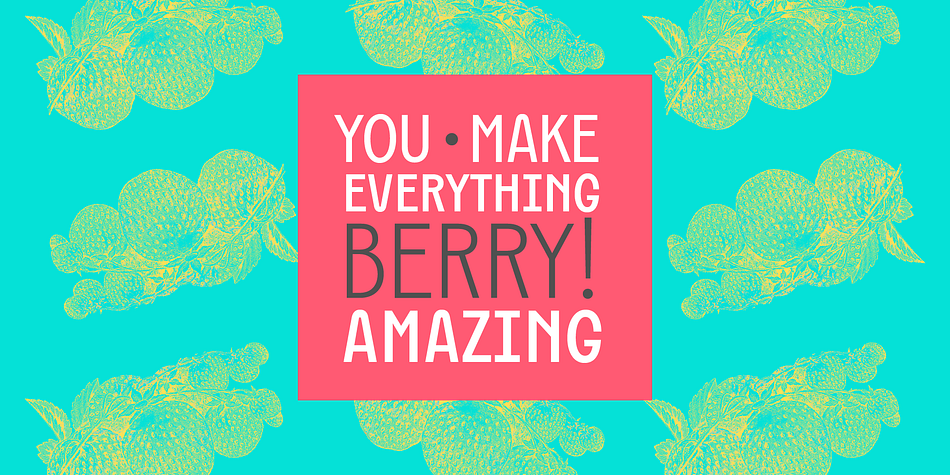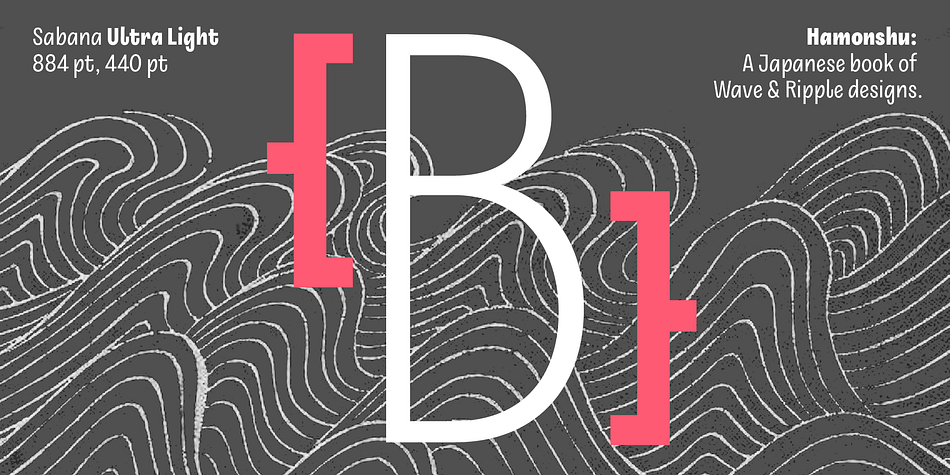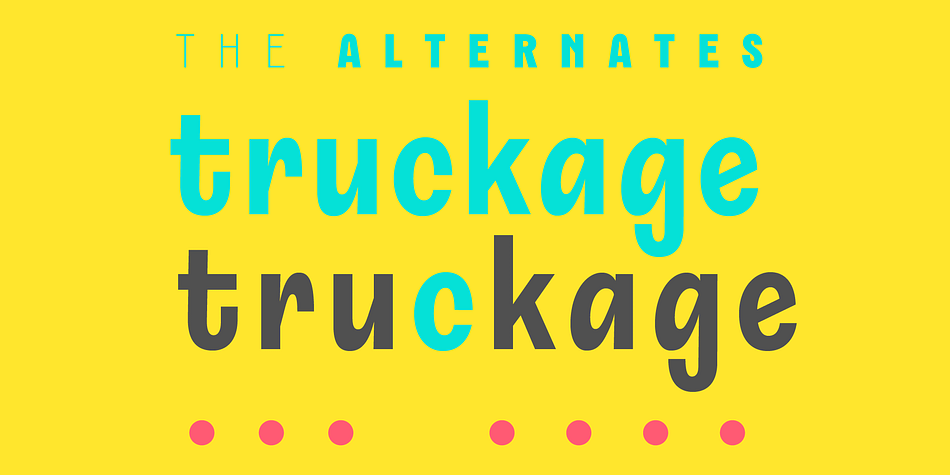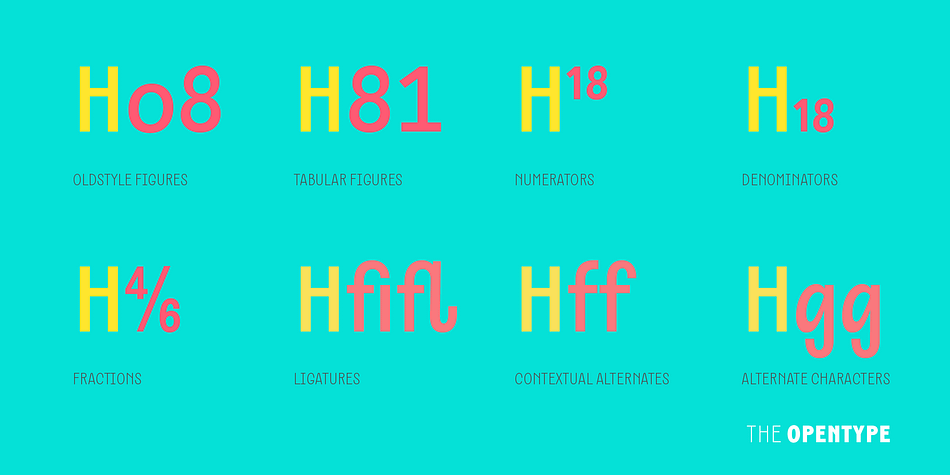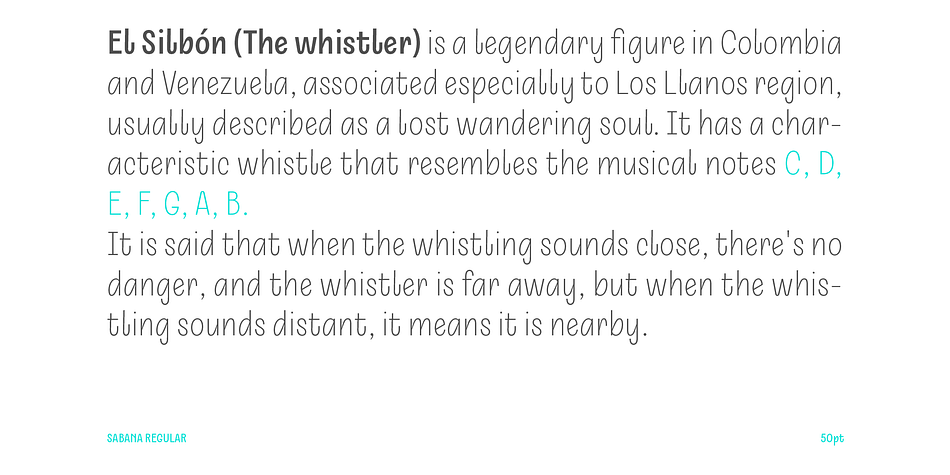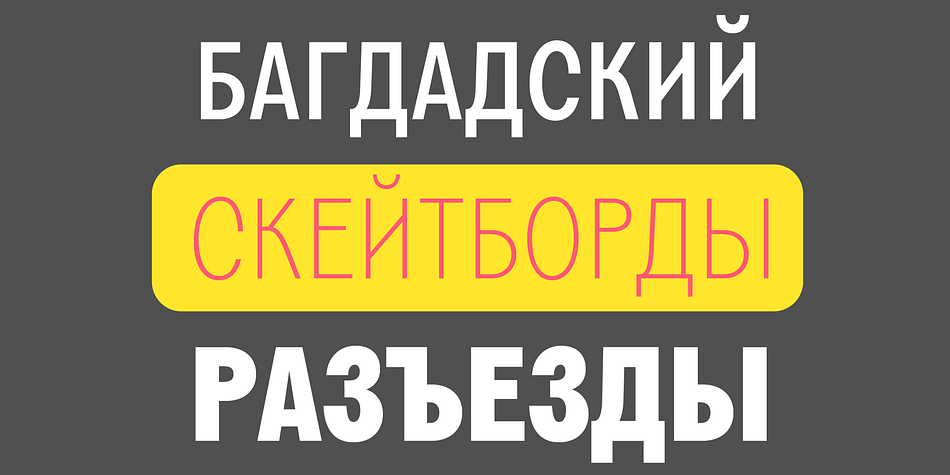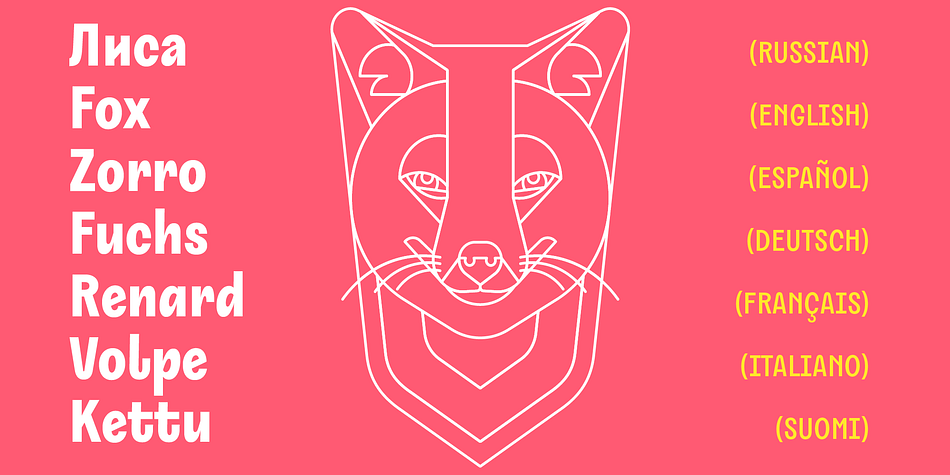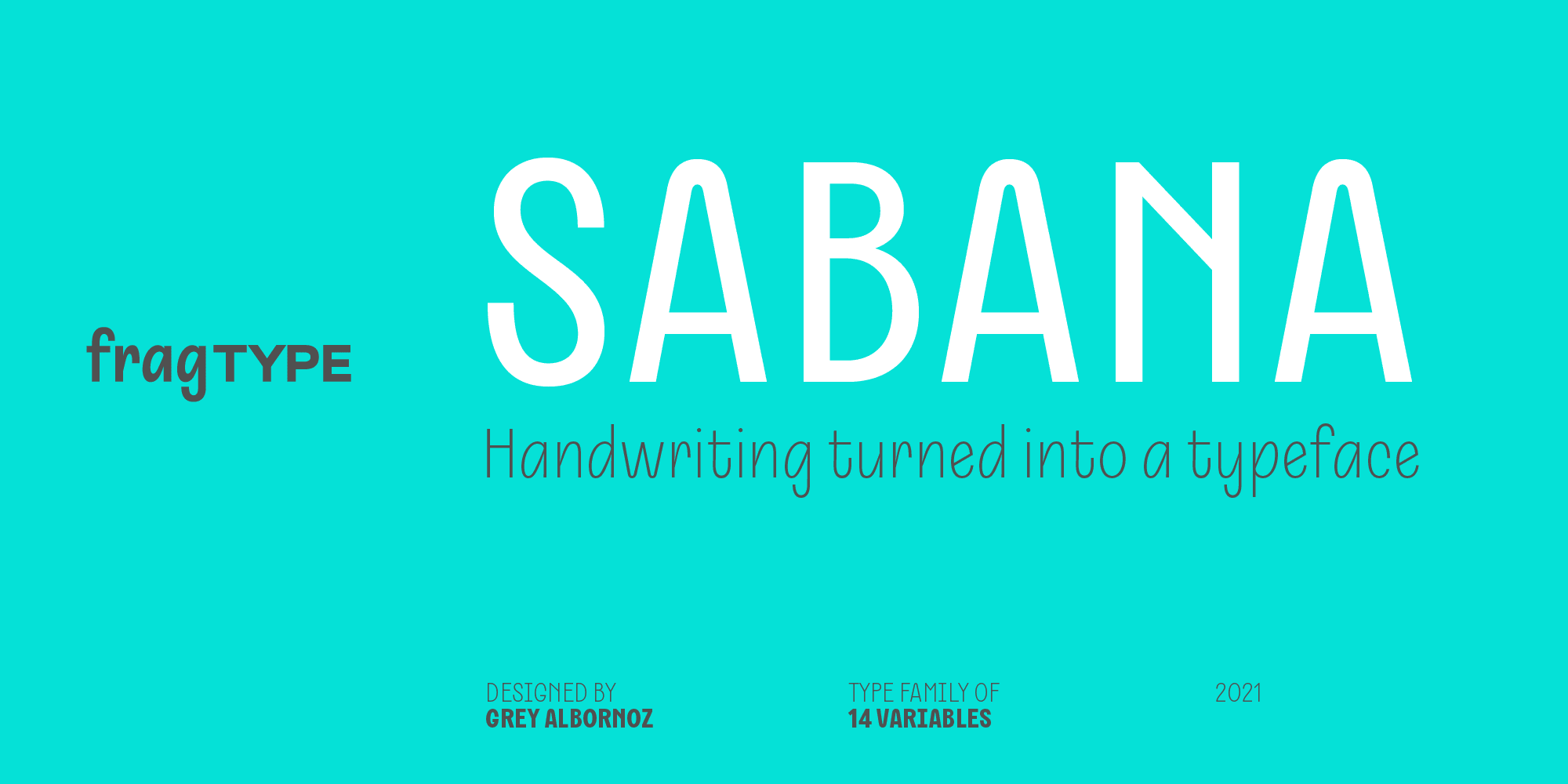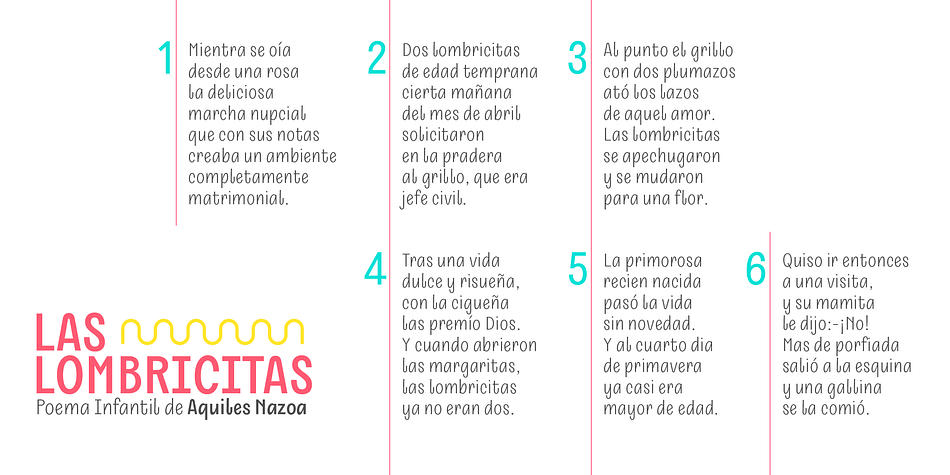
Sabana
Sabana is a display sans and sans serif font family. This typeface has fourteen styles and was published by fragTYPE.
Sabana is my first step in font design. A font that is born from the organic, from a creative process that starts from improvisation as a result of my training as an artist. To design Sabana I asked myself the question, why not make a font that emulates my own writing? as I found it fun to see my handwriting on a computer.
This font can be used in a wide range of projects such as editorial design, motion graphics, web, advertising and branding where emulating handwriting is a necessity. The font has coverage for more than 200 languages ​​derived of the latin alphabet in addition to Cyrillic.
Sabana is where I come from, where I am from, a constant on the horizon that is occasionally interrupted by vertical lines and that together make a perfect visual symphony.